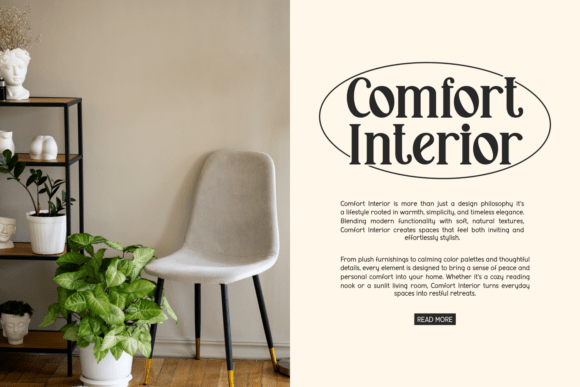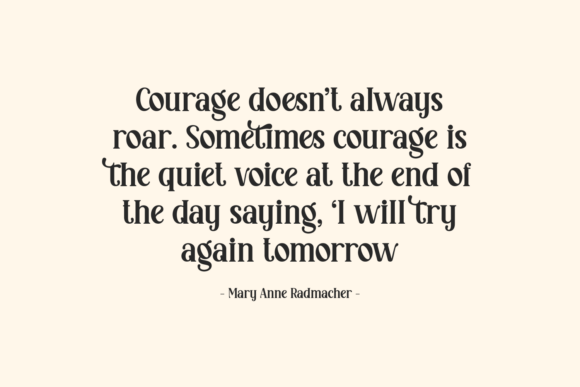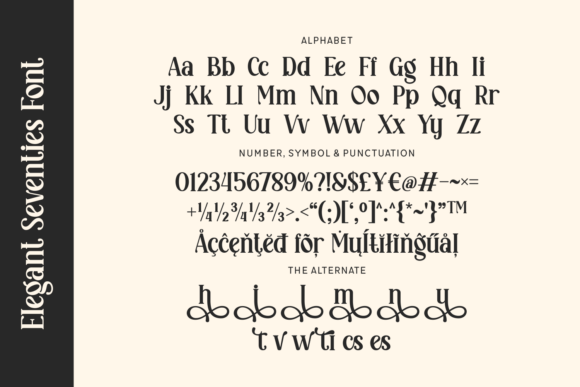
Elegant Seventies Font
Elegant Seventies is a retro serif typeface that blends nostalgic charm with playful sophistication. Featuring high-contrast strokes, funky ligatures, and whimsical swashes, this font captures the essence of 1970s design with a stylish modern twist. Ideal for vintage logos, fashion editorials, music posters, or boho branding, Elegant Seventies brings a bold yet graceful presence to any creative project.